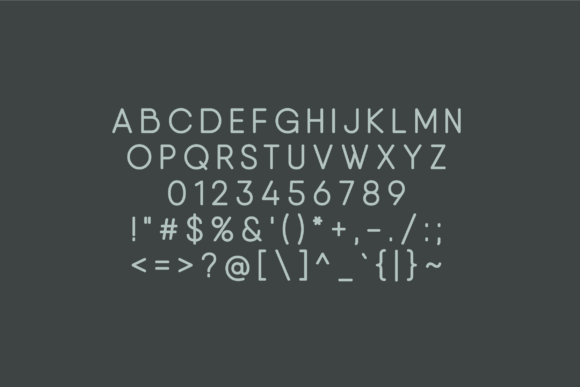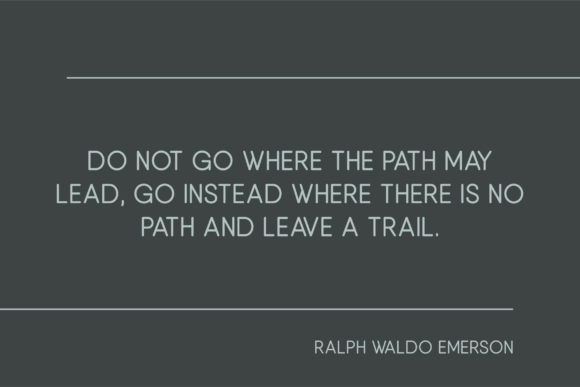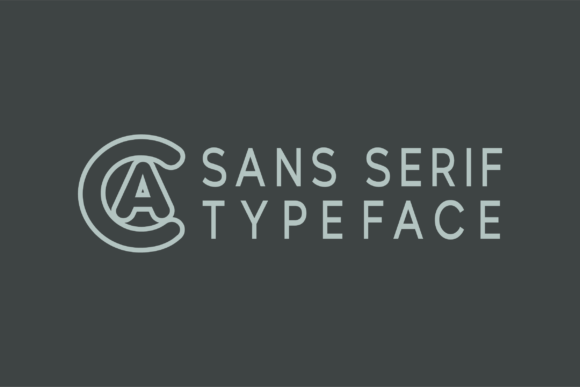
Discover the Sophisticated Charm of Aetherios Font
In the realm of typography, a font can make or break the visual appeal of a design. For those seeking a modernized feel with a touch of sophistication, Aetherios Font stands out as an exceptional choice. This urbane sans serif typeface is uniquely crafted to meet the demands of contemporary design, offering a blend of elegance and versatility that is hard to find.
What Makes Aetherios Stand Out?
Aetherios is not just another font; it’s a design statement. Its upper characters, numeric range of 0-9, and an extensive array of punctuation and symbols are meticulously designed to provide flexibility in every stroke. This comprehensive feature set makes Aetherios an ideal pick for a wide range of applications, from crafting memorable logos to enhancing wedding invitations, adorning quotes, creating conspicuous advertisements, elegant print materials, and editorial use in magazines.
The multi-faceted character of Aetherios is one of its most compelling attributes. Designers and crafters can use it to breathe life into their projects, adding a level of sophistication that elevates the overall design. Whether you’re working on a corporate brand identity that requires a modern and clean look or on creative projects that demand a bit of elegance and flair, Aetherios adapts seamlessly.
Applications of Aetherios Font
- Logo Design: A well-designed logo is crucial for brand identity. Aetherios, with its clean lines and modern feel, helps in creating logos that are not only visually appealing but also convey a sense of professionalism and sophistication.
- Wedding Invitations: The elegance of Aetherios makes it a perfect fit for wedding invitations, adding a touch of class and luxury to what is often a once-in-a-lifetime event.
- Quotes and Typography: For those who love to adorn quotes or need typography that stands out, Aetherios provides the distinct elegance required to make every word count.
- Advertisements: In advertising, grabbing attention is key. Aetherios, with its unique charm, helps in creating ads that are not only eye-catching but also convey a level of sophistication that can appeal to a wide audience.
- Print Materials and Magazines: For editorial use in magazines or for creating elegant print materials, Aetherios offers the versatility and style needed to make any project stand out.
The Aesthetic Appeal of Aetherios
Aetherios Font embodies a distinct elegance that sets it apart from other sans serif typefaces. Its design is a careful balance of modernity and sophistication, making it suitable for projects that demand a high level of visual appeal. The font’s ability to convey a sense of luxury and professionalism without appearing overly ornate or complicated is one of its strongest assets.
Why Choose Aetherios?
Choosing Aetherios for your design projects comes with several benefits:
- Modernized Feel: Aetherios provides a contemporary look that is essential for brands and projects aiming to appear modern and relevant.
- Elegance and Sophistication: Its unique design adds a level of sophistication that can elevate any project.
- Versatility: With its comprehensive character set, Aetherios is versatile enough to be used across various design applications.
Aetherios Font is more than just a typeface; it’s a design companion that can help you achieve a level of sophistication and modernity in your projects. Whether you’re a designer, a crafter, or someone who appreciates the finer details of typography, Aetherios offers the perfect blend of style, elegance, and versatility. Immerse yourself in the distinct elegance of Aetherios and make every word count with a font that truly understands the demands of modern design.